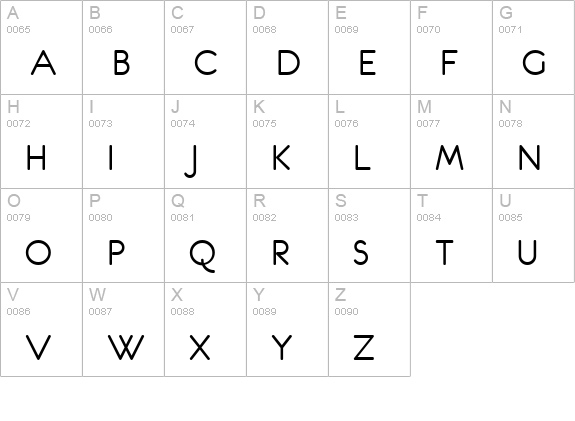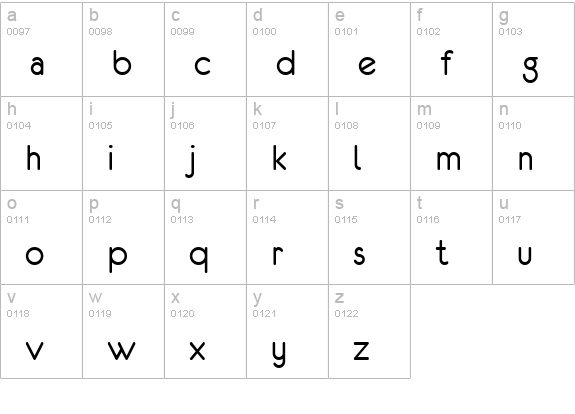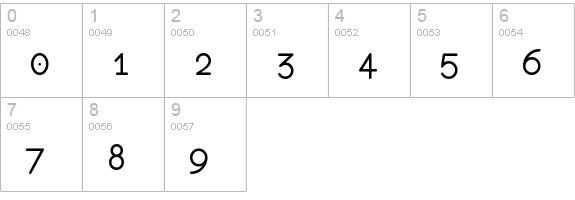
eurofurence regular Font Details
eurofurence regular is the standard, neutral variant in the eurofurence typeface family \xE2\x80\x94 well suited to general body text, paragraphs, and standard typographic work.